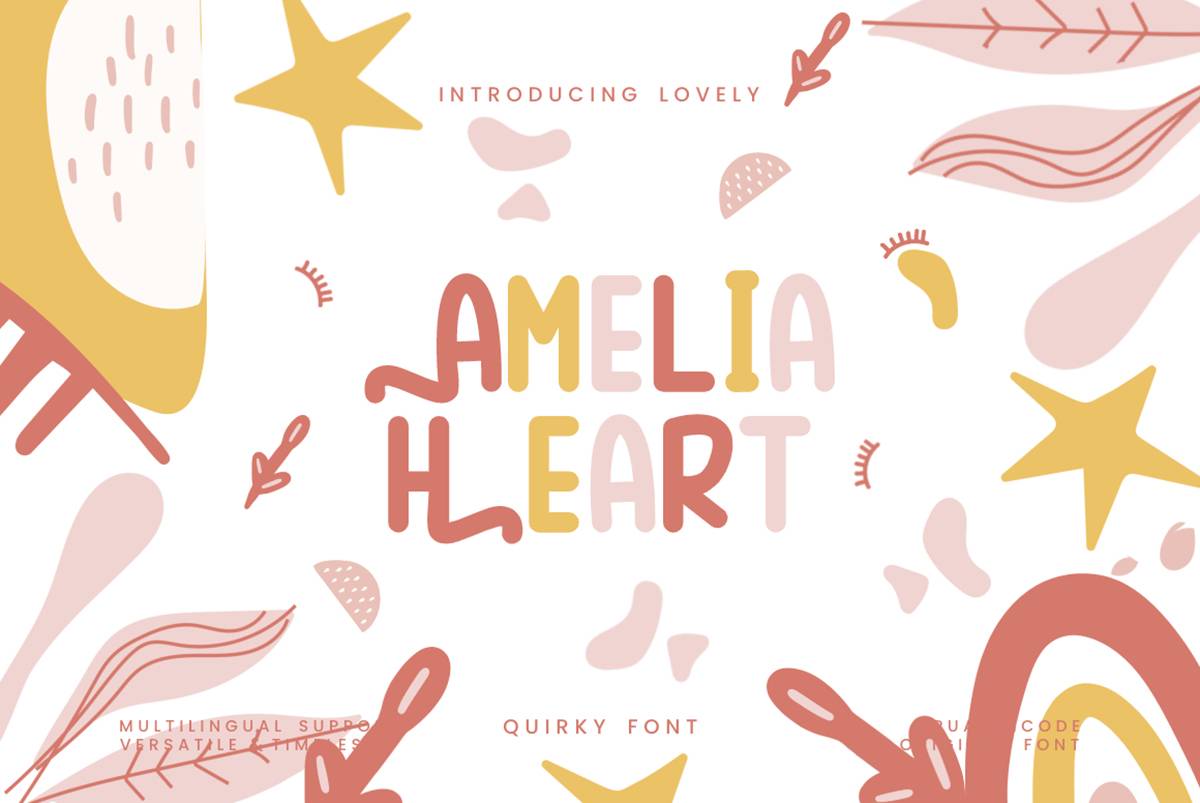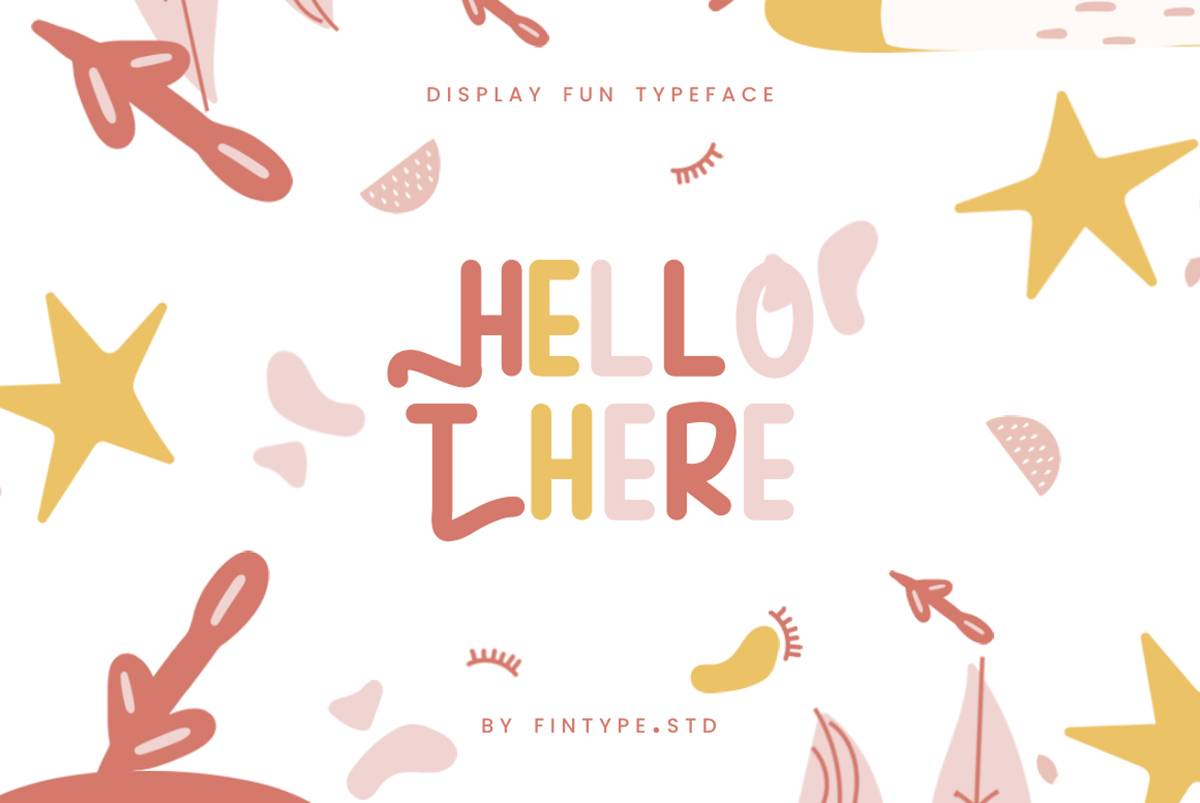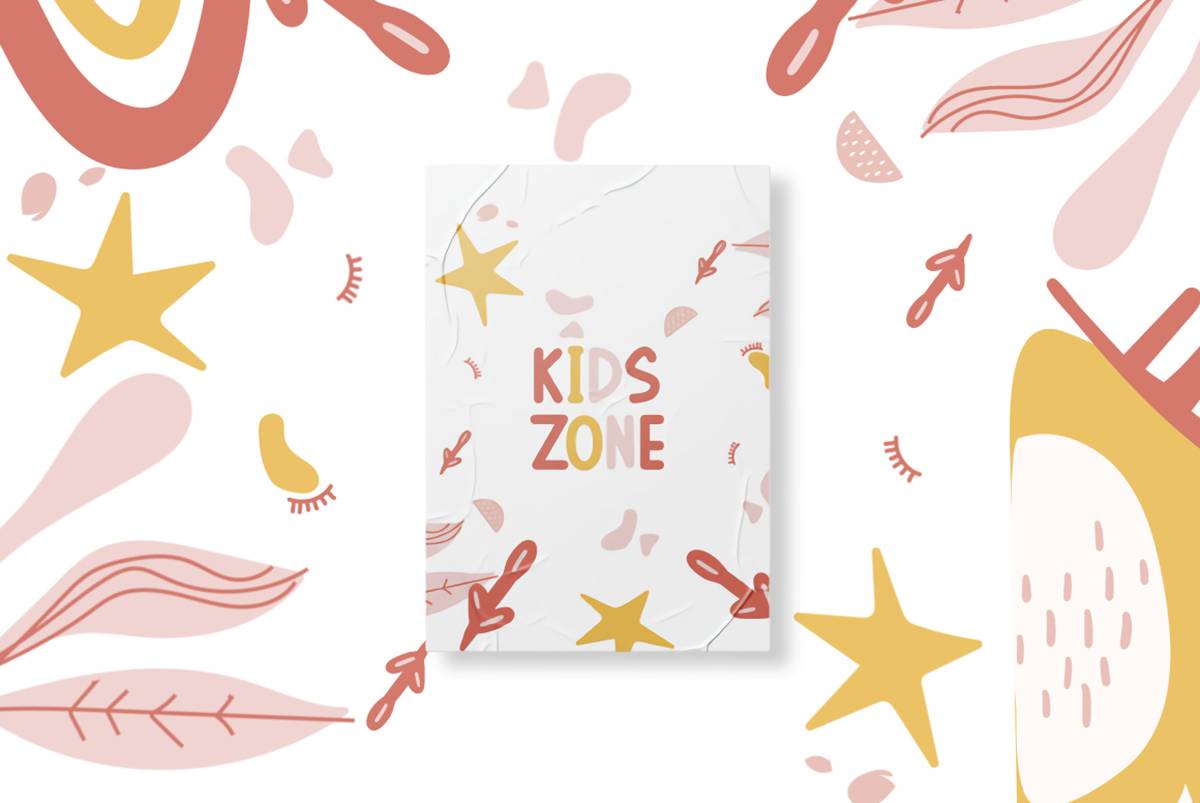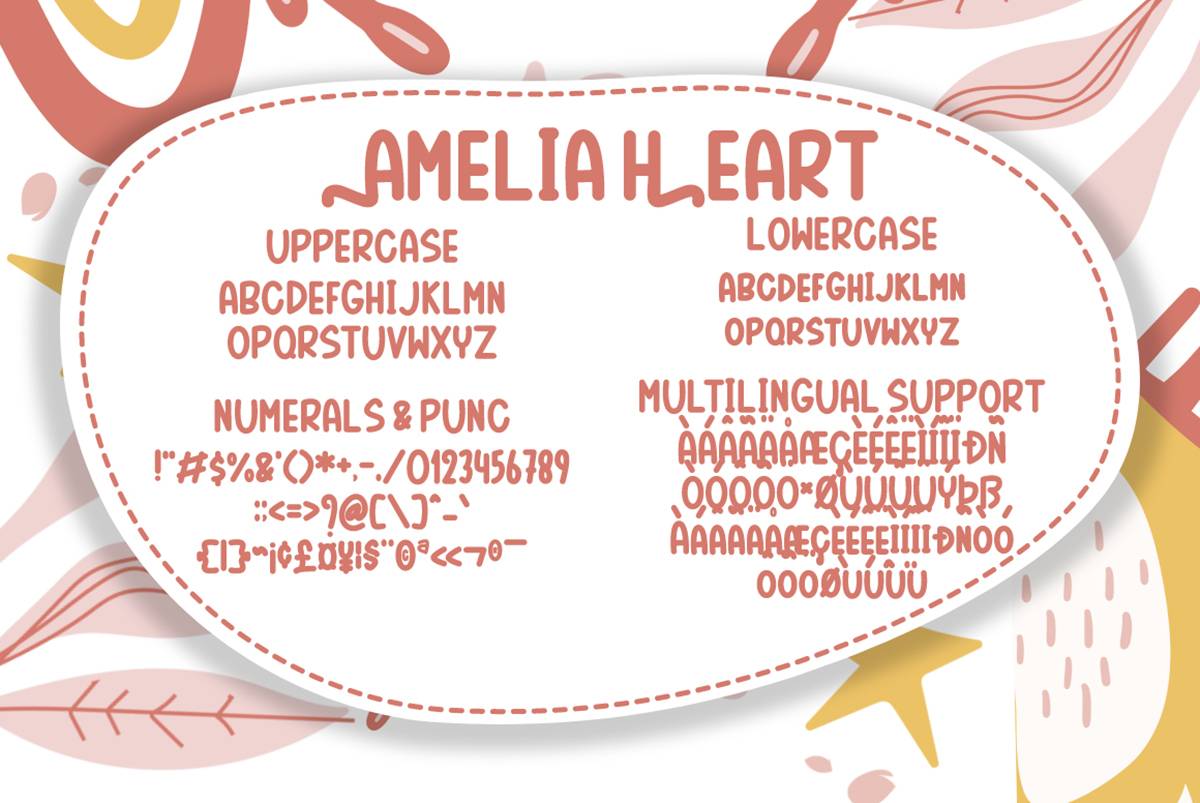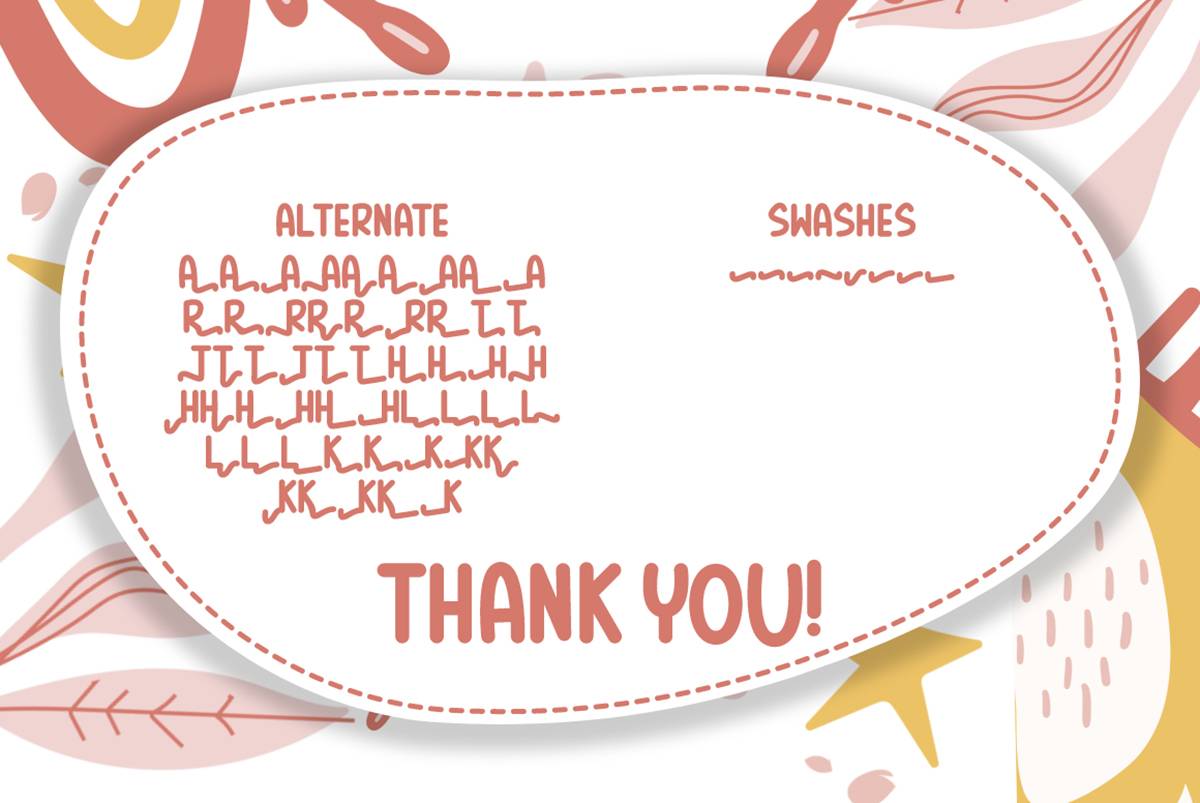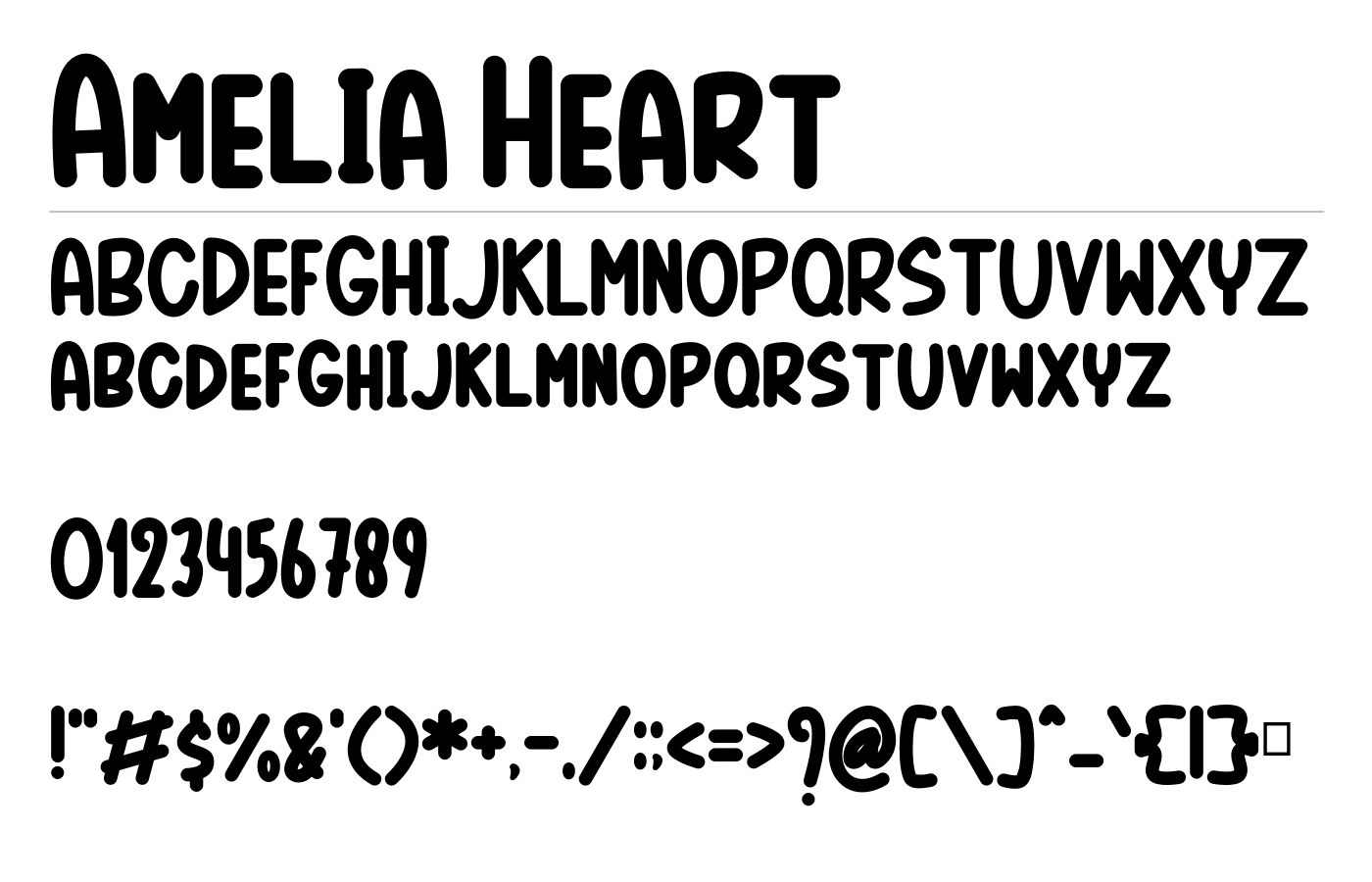
Amelia Heart is a playful and rounded sans serif font with a friendly, informal feel. Its bold weight and slightly condensed letterforms, combined with smooth curves and quirky details, make it ideal for casual branding, children’s materials, and eye-catching headlines. This font works well where a fun, approachable, and modern look is desired.
Amelia Heart Font
About Amelia Heart Font
| Font family | Amelia Heart Font |
| Designer | FinTypeStudio |